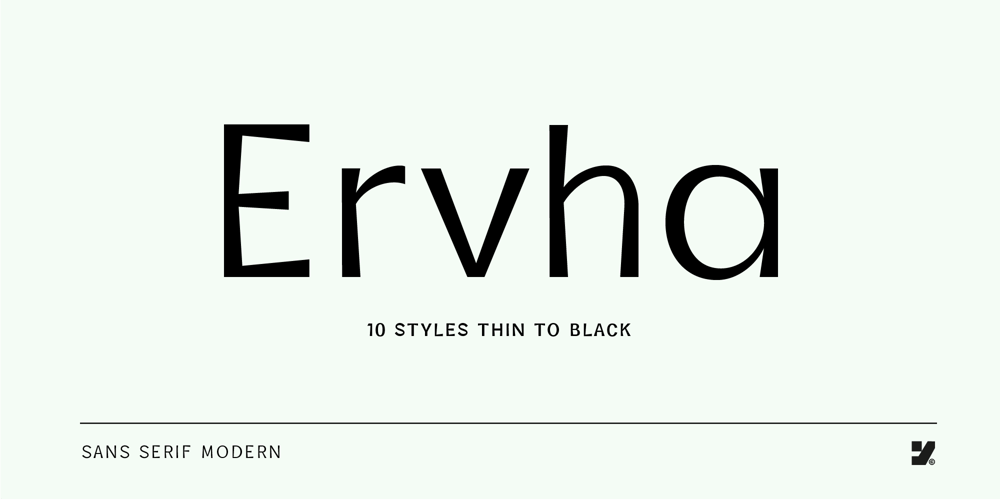
Ervha Font Family was designed by abdul artega and published by Yukita Creative. Ervha contains 10 styles and family package options. Introducing Ervha Modern Sans Serif TypefaceErvha is a modern sans serif font with a minimalist and trendy style. This font has 10 styles from thin to extra black Perfect font for print and digital projects. Quality fonts can help your projects become more modern and classy. This font also supports other languagesThe clean and sharp lines of sans serif fonts are the main reason many graphic designers prefer this font style for both screen and print use. Clean lines and sharp edges can be displayed more clearly on the screen which improves legibility for users.What do you get when you buy this font? Ervha is one font you need Affordable and versatile Multilingual support and complete character set Designed by a Typeface Designer Get one font for any occasion Multilingual support in this modern sans serif font Well known for its exceptional readability Enhance your Project by using Ervha Sans Serif Modern as your font of choice.